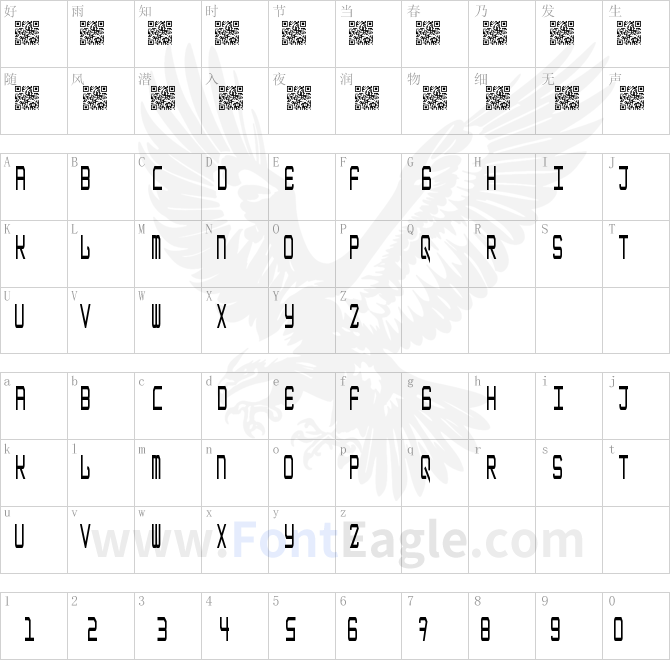
- Font name:EpicenterBoldThin
EpicenterBoldThin is a great font, widely used in graphic design, single-page menu design, poster design and other fields, and is deeply loved by designers.EpicenterBoldThin download.